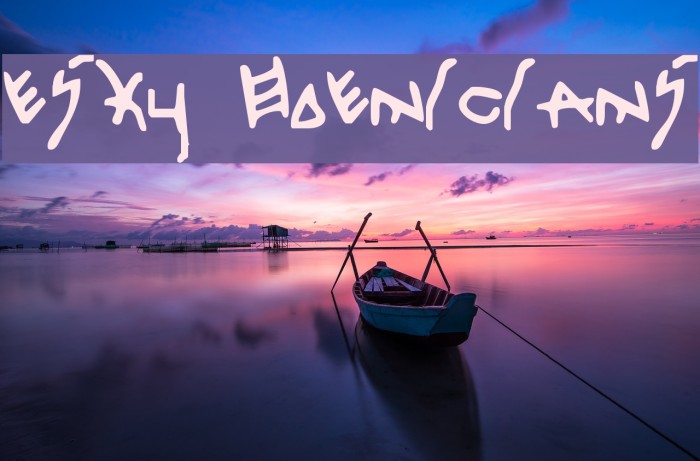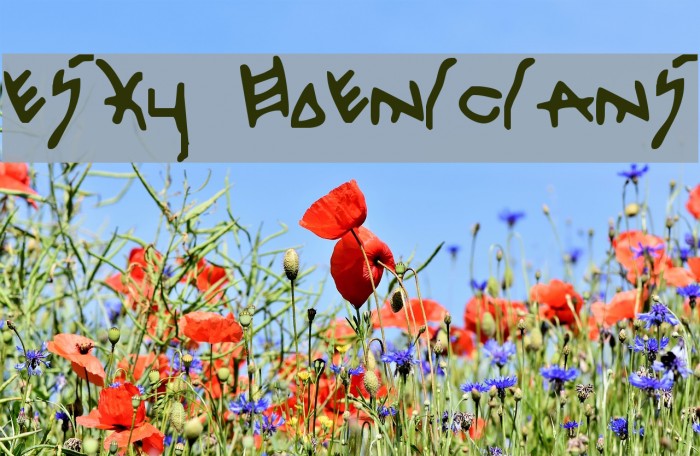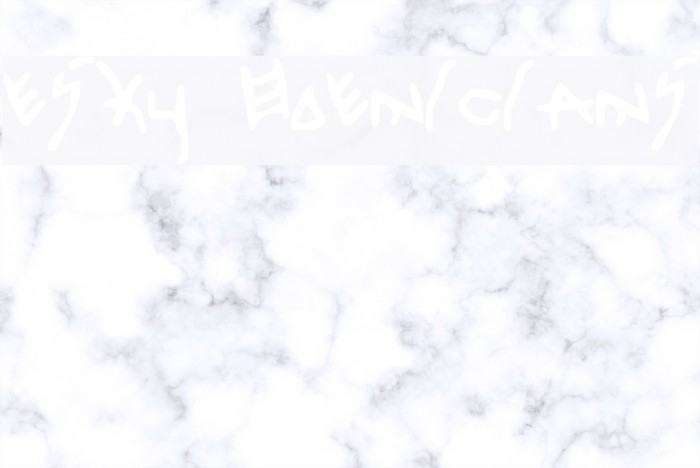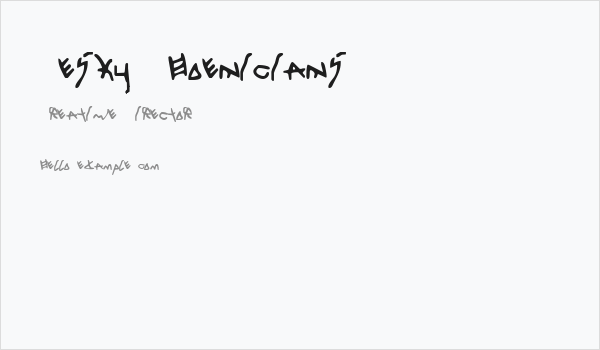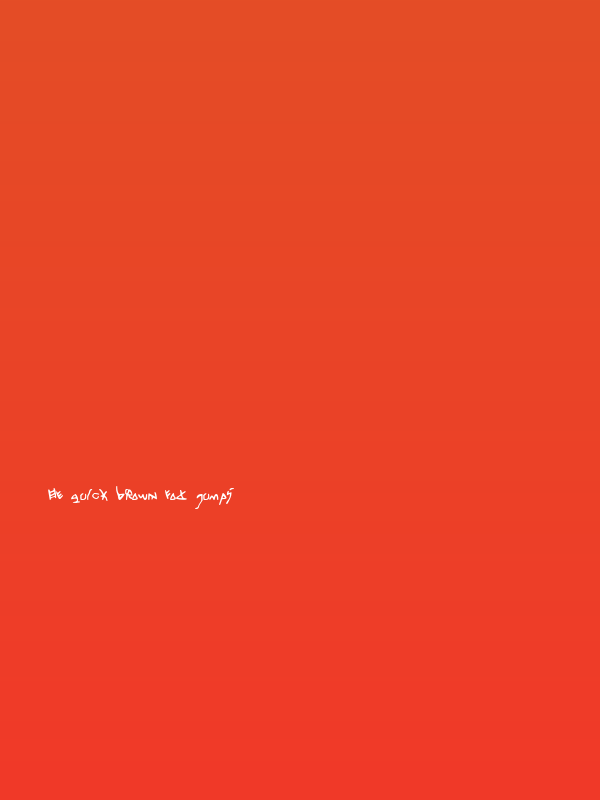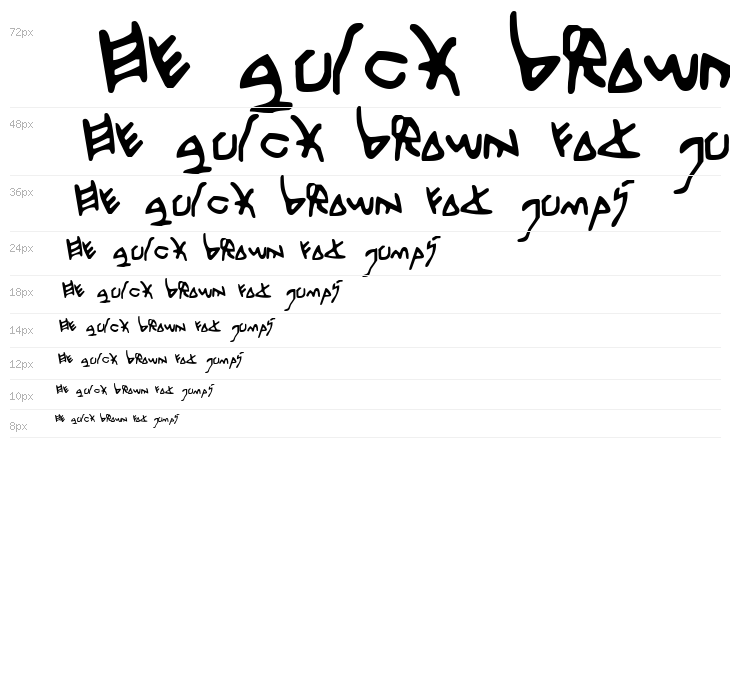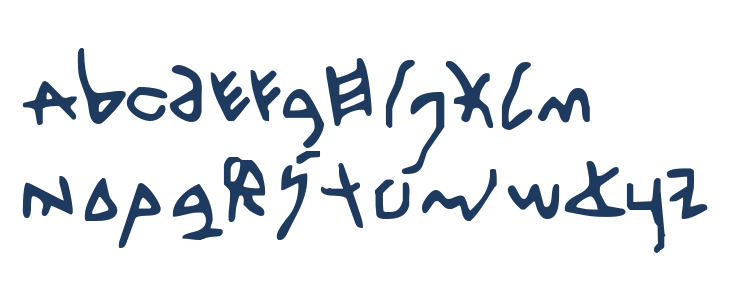
Pesky Phoenicians Font
Pesky Phoenicians Description
This font features a highly decorative and artistic style, reminiscent of ancient scripts with a modern twist. The characters are crafted with a playful and whimsical touch, showcasing unique curves and angles that give it a hand-drawn appearance. Each letter is distinct, with varying stroke thicknesses that add to its charm and character. The font captures an essence of historical elegance while maintaining a contemporary feel, making it suitable for creative and expressive projects. The overall design is both captivating and intriguing, inviting viewers to explore the text further.
| Use Case | Logos, Artistic projects, Creative posters |
| Proposed Projects | Ideal for artistic projects, branding, logos, and creative posters. |